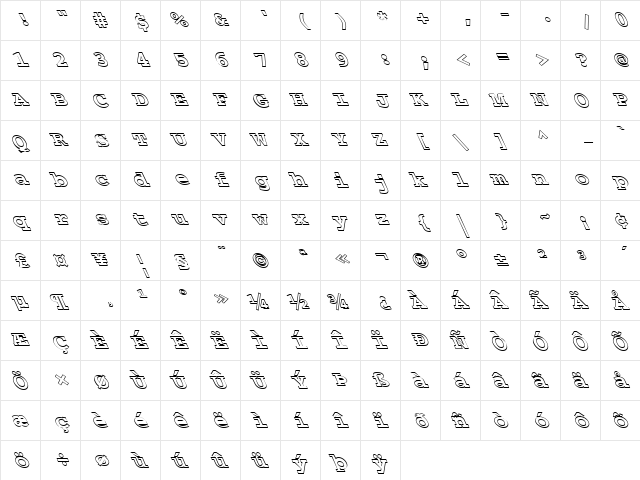
FZ BASIC 54 HOLLOW LEFTY Bold Font Preview
FZ BASIC 54 HOLLOW LEFTY Bold
Design Context for FZ BASIC 54 HOLLOW LEFTY Typeface
FZ BASIC 54 HOLLOW LEFTY offers clean, dependable letterforms without strong stylistic allegiance, making it a practical choice for designers who need flexibility. The heavy weight commands attention and anchors typographic hierarchies.